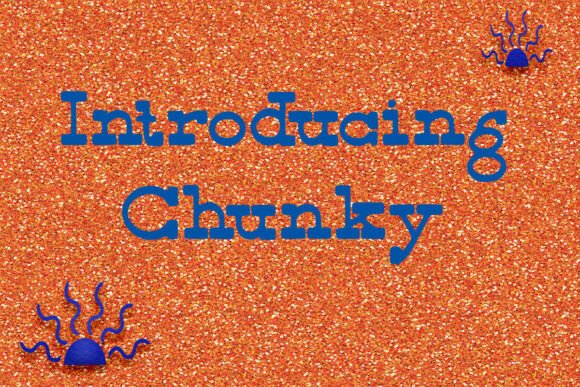
The Perfect Match for Your Next Creative Project
Have you ever stared at a blank canvas, itching to bring your design ideas to life? The thrill of creating something new is exhilarating, but the right tools can make all the difference. This is where Chunky Font comes in – a versatile choice that’s sure to elevate your designs and leave a lasting impression.
Expertly crafted, Chunky Font is a go-to choice for designers looking to add a touch of boldness and character to their work. Whether you’re creating eye-catching posters, vibrant stickers, or attention-grabbing social media content, Chunky Font is the perfect match. Its distinct characters and bold style make it an asset for any creative project, from magazine layouts to Cricut designs.
Chunky Font Key Features
- Unique Characteristic: Chunky Font is known for its bold, chunky style, making it ideal for use in headings, titles, and other display typography.
- Font Weight and Style: Chunky Font is available in regular and bold weights, as well as italic and oblique styles, providing flexibility for different design applications.
Chunky Font Review
Overall, I’d say Chunky Font is a solid choice for designers looking to add some visual interest to their projects. ✨ Its bold, chunky aesthetic is perfect for creating a fun and playful vibe, and it’s incredibly versatile – I’ve seen it used in everything from logos to social media graphics.
- ✨ Highly customizable: Chunky Font comes in a range of styles and weights, making it easy to find the perfect fit for your project.
- ✨ Easy to read: Despite its chunky appearance, Chunky Font is surprisingly easy to read, even at small font sizes.
That being said, there are a few limitations to keep in mind:
- ⚠️ Limited font sizes: While Chunky Font is easy to read, it can start to look a bit messy at very large font sizes.
- ⚠️ Not ideal for small text: Chunky Font is best used for headings and titles – it’s not the best choice for small blocks of text.
Overall, I’d give Chunky Font 4 out of 5 stars. It’s a fun and versatile font that’s perfect for adding some personality to your designs. Just be mindful of its limitations and use it in the right context.
Chunky Font: A Practical Application Guide
Chunky Font is ideal for creating bold, eye-catching headings and titles. Use it to draw attention to important information, such as headings, subheadings, and calls-to-action. You can also use it to add a playful touch to your designs, such as in social media graphics or advertisements.